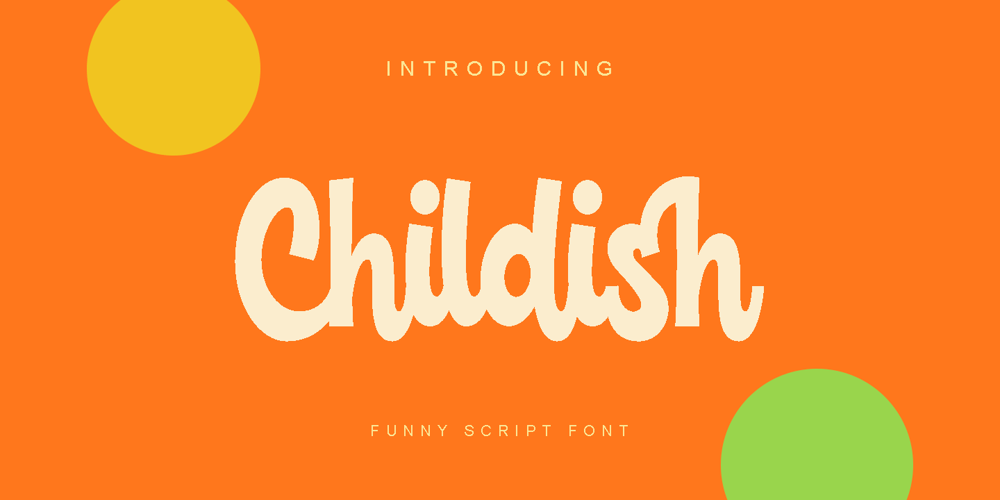
Childish
Childish font
Childish Font Family was designed by Agung Rohmat and published by alphArt. Childish contains 1 styles and family package options. Hello everyone, this time we would like to introduce a funny script font that we just made with passion and enthusiastic, this font comes with a touch of funny font.Introducing this handwritten font called “Childish | Funny Script Font”, this funny font comes with uppercase letters, lowercase letters, ligatures, multilingual support, numbers and punctuation.This font is suitable for you to use as logos, quotes, instagram posts, invitations, magazines, cards, product packaging, headers and whatever your imagination.